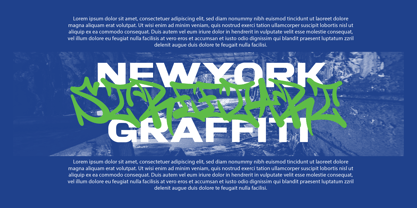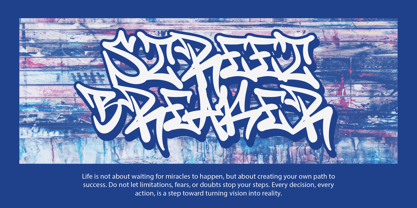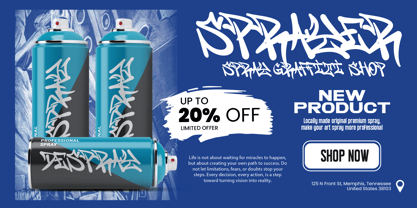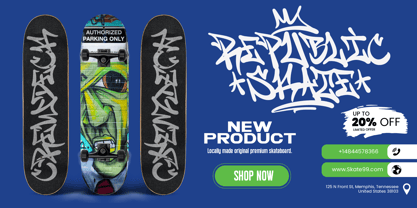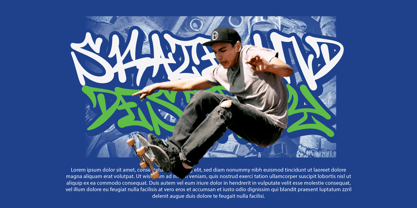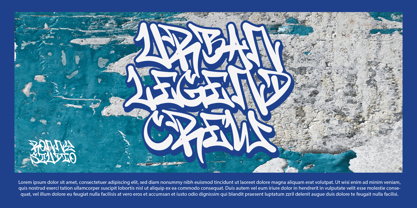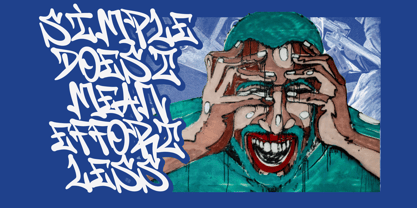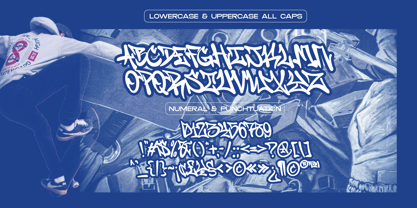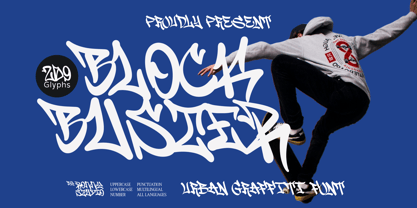
Block Buster
by Ronny Studio
The Block Buster Font Family was designed by Rony Rizki Jaya and published by Ronny Studio. Block Buster contains 2 styles and family package options. More about this family
Block Buster is a bold and expressive graffiti font that brings the raw energy of street art and urban culture into your designs. Inspired by authentic hand-drawn graffiti, this font is perfect for branding, posters, streetwear, album covers, and more!
✔️ Urban Branding & Logos
✔️ Music & Skateboard Posters
✔️ Streetwear & Merchandise
✔️ Album Covers & Event Flyers
✔️ Social Media Graphics That Stand Out